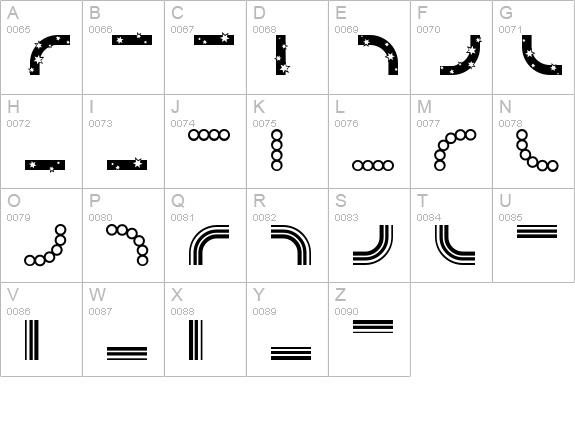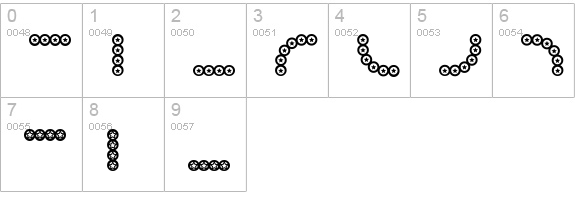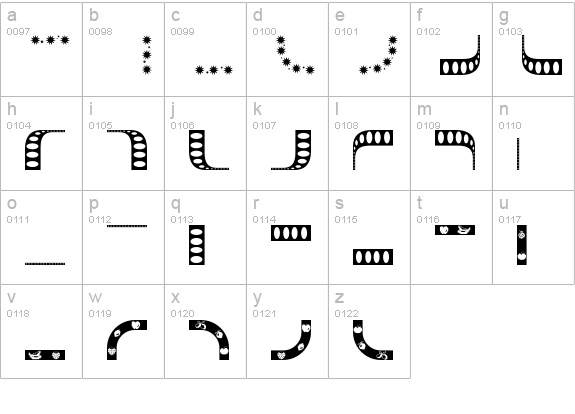
BorderMon Series 1 Font Details
BorderMon Series 1 font is a unique and stylish typeface that adds a touch of sophistication to any design project. This font features intricate border elements that give a classic and elegant look to your text. Perfect for invitations, posters, and other creative projects, BorderMon Series 1 font will surely make your designs stand out. The best part is that BorderMon Series 1 font is absolutely free to download at FontsMarket.com. Take advantage of this amazing opportunity to enhance your design work with this exquisite font without any cost. Download BorderMon Series 1 font today and elevate your projects to the next level!